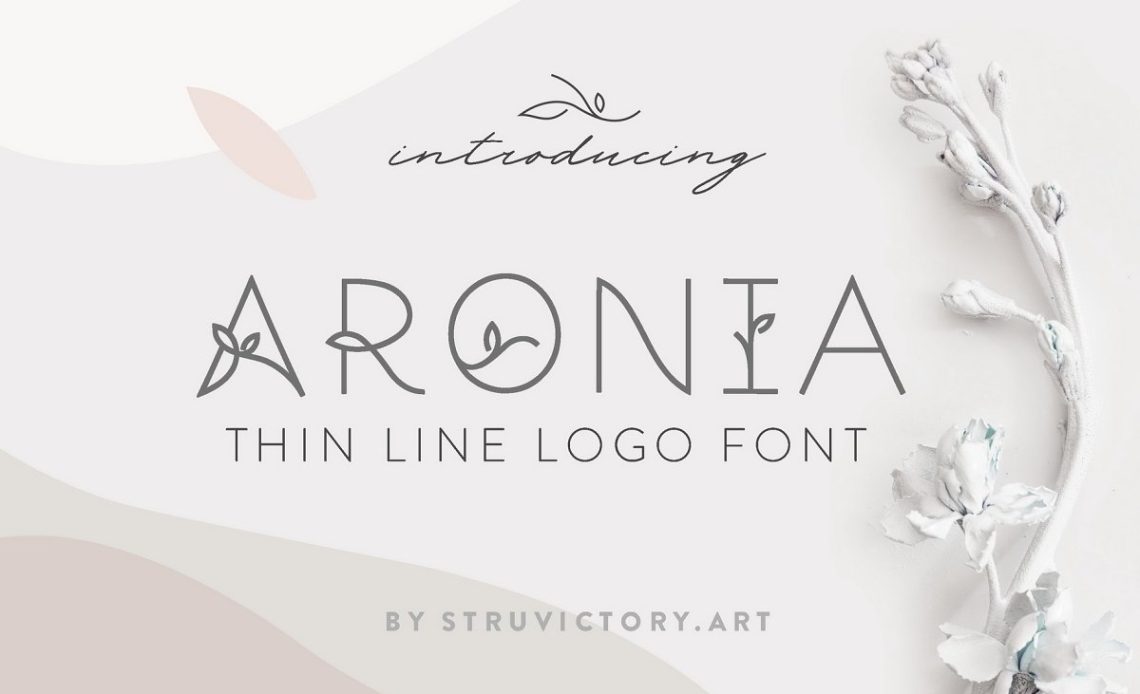
Looking for the best fonts for wedding logos that will leave a lasting impression? Look no further than Aronia, the thin line logo font that is perfect for creating elegant and unique designs. Created by Victoria Strukovskaya, Aronia is an uppercase font with floral motifs that includes regular and symbol versions. With Aronia, you can easily combine letters with elements to create logos and monograms that will capture the attention of your audience.
But Aronia isn't just for wedding logos. This versatile font is also suitable for feminine business branding, eco-friendly and minimalistic art, social media design, and even craft product branding and packaging, such as organic cosmetics and food, jewelry, and handmade soap. Aronia combines well with modern graphics like abstract shapes and line art, making it a great addition to any design project.
In summary, Aronia is a keyword-rich, informative, and captivating font that is perfect for creating wedding logos and a wide range of other design projects. With its unique floral motifs and easy-to-use design, Aronia is sure to leave a lasting impression on your audience.